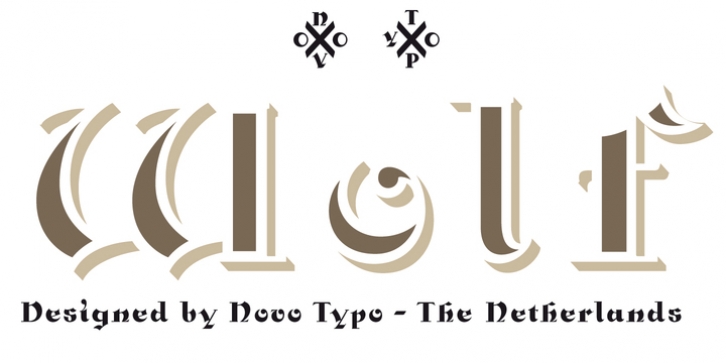
NT Wolf downloadDesigner: Mark van Wageningen
Publisher: Novo Typo
Wolf is a package of four fonts. Wolf is perfect for multi-layered typography and the use of color in type. Wolf allows the user endless possibilities in color. Wolf is perfect for designing sophisticated logo’s, fashionable headings or other beautiful display typography for print or web. The complete glyph set of Wolf contains a lot of extra elegant glyphs, swooshes and ligatures.